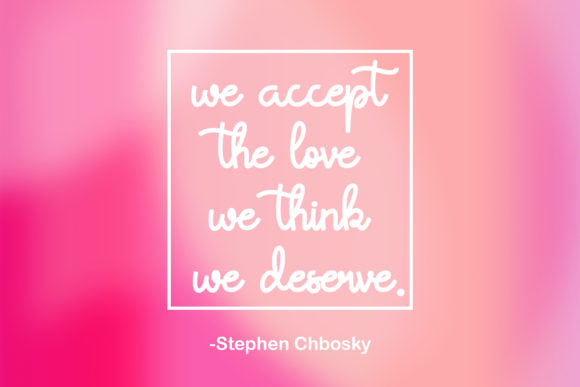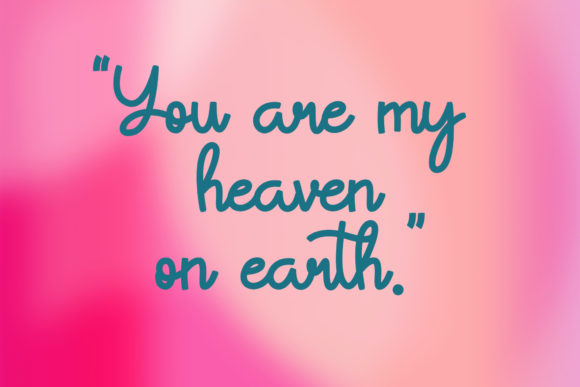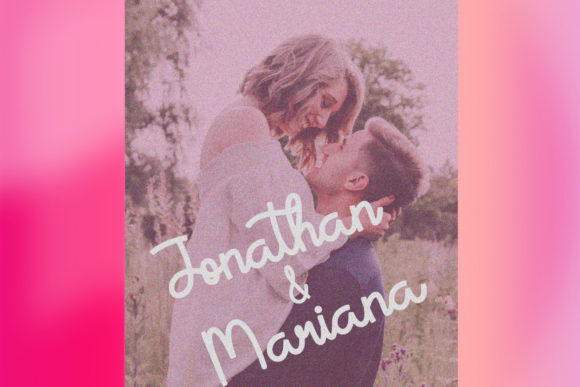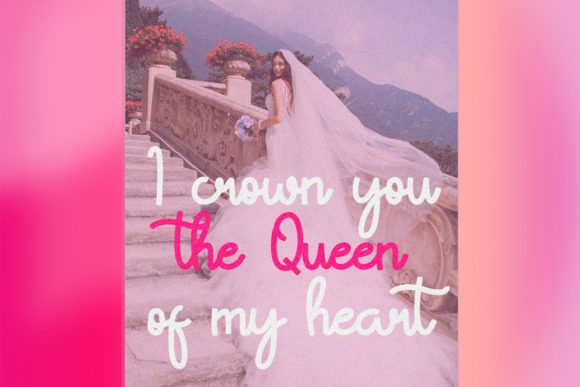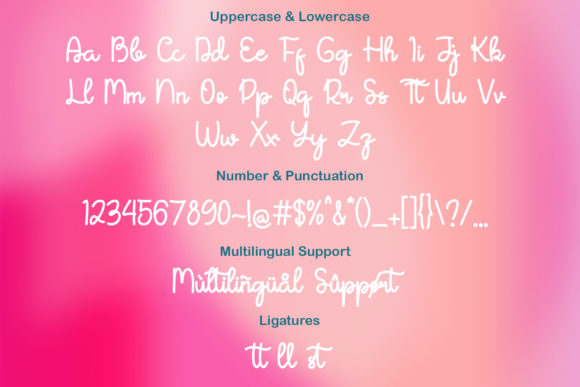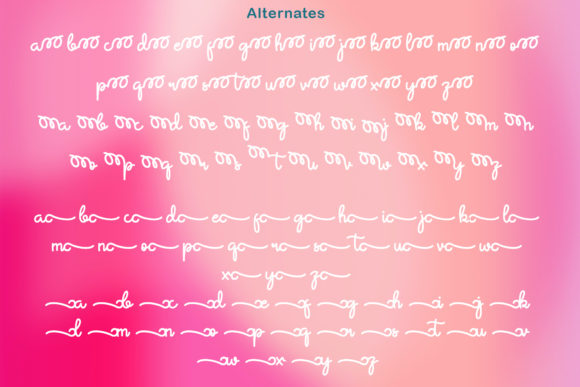
Introduction to Caliata Font
Caliata feels equally charming and elegant.
It looks stunning on wedding invitations, thank you cards, quotes, greeting cards, logos, business cards and every other design which needs a handwritten touch This font is PUA encoded which means you can access all of the glyphs and swashes with ease.
Key Features of Caliata Font